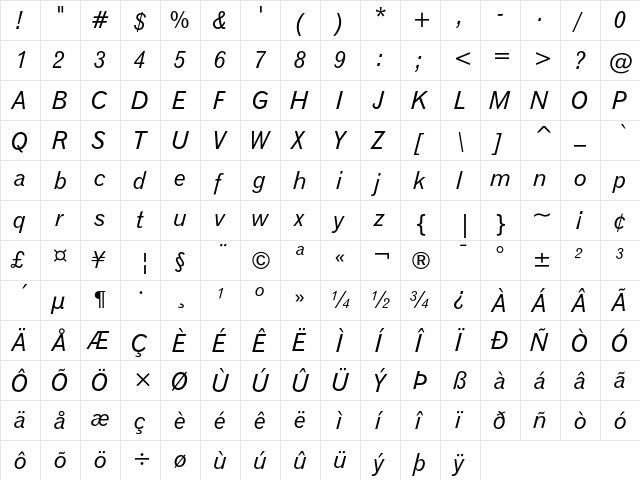
Gothic 720 Italic Font Preview
Gothic 720 Italic
Gothic 720 Italic Font Details
Design Context for Gothic 720 Typeface
Gothic 720 has the quiet confidence of well-executed sans-serif typography: versatile, unobtrusive, and dependable at any size. The dynamic lean of this cut emphasises speed and emphasis in any layout.
Font Pairing: Works well alongside a characterful serif or display font that can carry the expressive load while Gothic 720 handles the functional copy.
Pro Tip: Use Gothic 720 for UI labels, navigation, and short-form body copy where clean legibility is the priority.